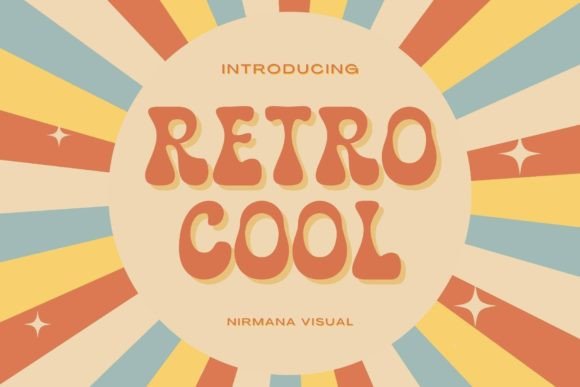
Journey back to the groovy era of the 70s and 80s with Retro Cool Font, a stunning serif display font that oozes timeless charm and personality. This font is not just a collection of letters; it's a gateway to a bygone era, where bell-bottoms, disco beats, and bold aesthetics reigned supreme.
As you type with Retro Cool Font, feel the nostalgia wash over you. Each character is meticulously crafted to capture the essence of that iconic decade, transporting you to a world of vibrant colors, funky patterns, and carefree vibes. Whether you're designing a music poster, creating a retro-themed social media post, or crafting a captivating logo, Retro Cool Font is your perfect companion.
With its beautiful typographic harmony, Retro Cool Font brings a touch of elegance and sophistication to any project. Its smooth curves, sharp serifs, and playful details create a visually striking impact that demands attention. Unleash your creativity and let Retro Cool Font take you on a journey through time, where your designs will stand out from the crowd.
Don't settle for ordinary fonts that blend in with the rest. Embrace the extraordinary with Retro Cool Font. This font is more than just a design tool; it's a statement piece that reflects your unique style and appreciation for the past. As you work with Retro Cool Font, you'll discover endless possibilities for expressing yourself creatively.
So, dive into the world of Retro Cool Font and let your imagination soar. Embrace the nostalgia, indulge in the creativity, and create designs that speak to the heart. Retro Cool Font is not just a font; it's an experience that will transform your design journey.